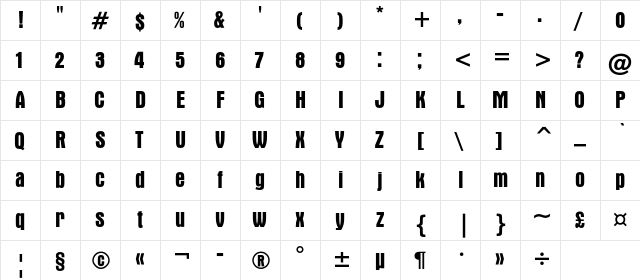
Apical-Bold Regular
Design Context for Apical-Bold Typeface
Apical-Bold takes a measured approach to typography — its balanced proportions and neutral character make it a reliable workhorse for both digital and print work. Its bold stroke weight gives it real presence on the page.
Pro Tip: Use Apical-Bold in both headline and body roles to test its range before committing to a single application.